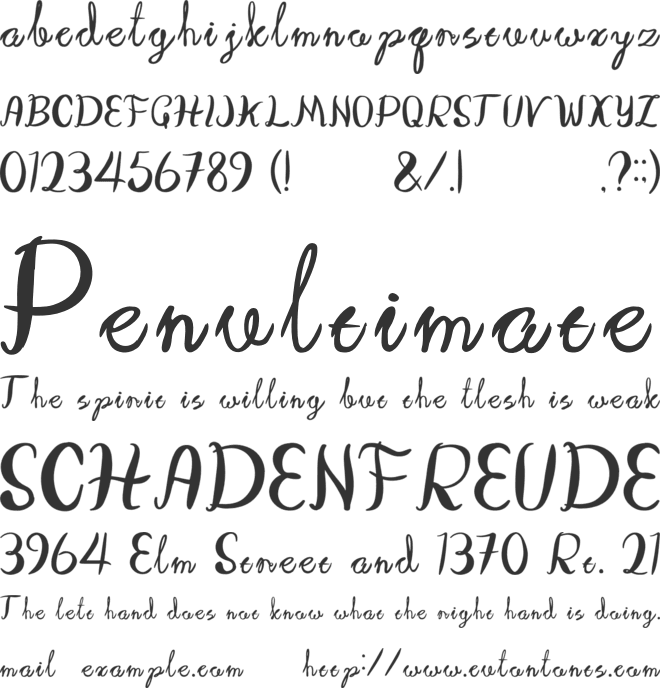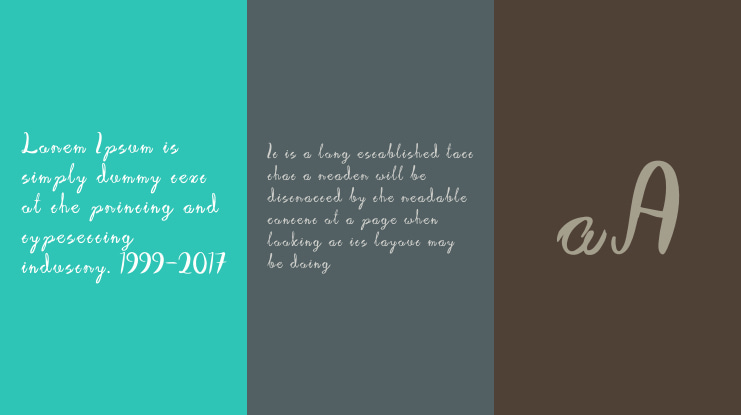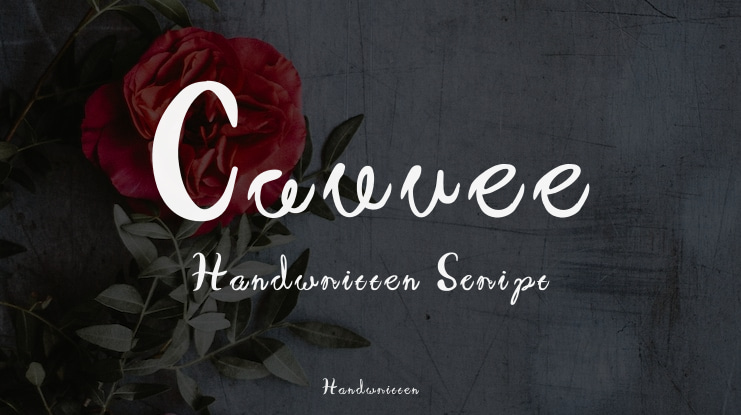
IMAMFATHONI0
Couvee Handwritten Script is an upright connected script with elegant, flowing handwritten strokes. Its graceful rhythm and refined curves give wedding invitations, logos, and branding a touch of timeless romance. The neat, legible letterforms balance sophistication with warmth, perfect for special occasions.